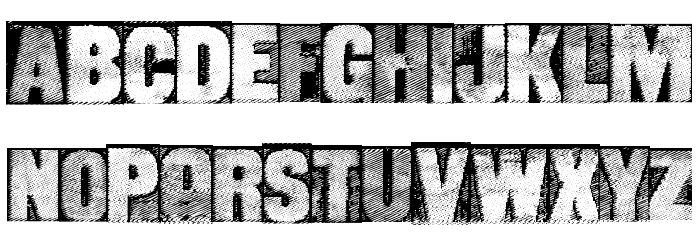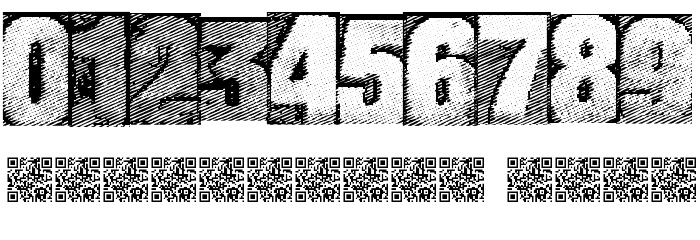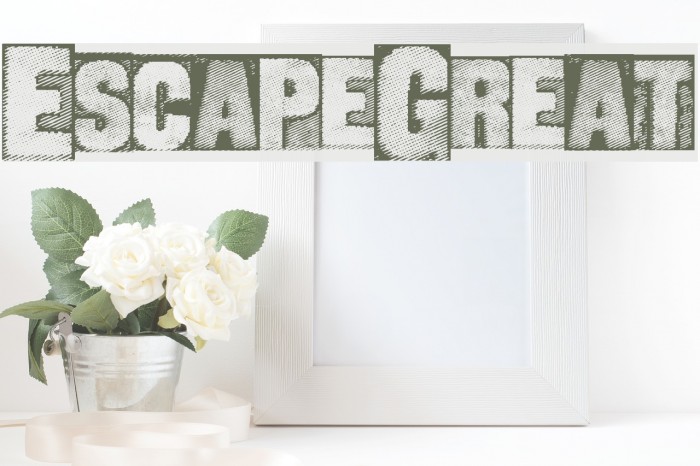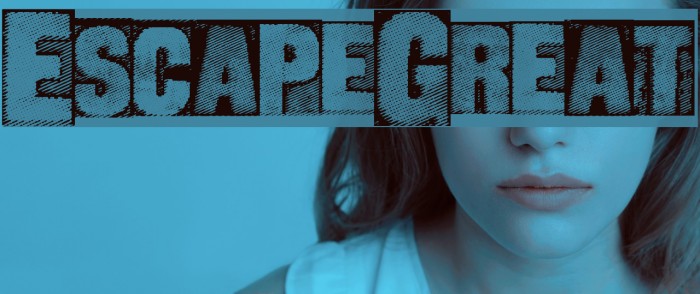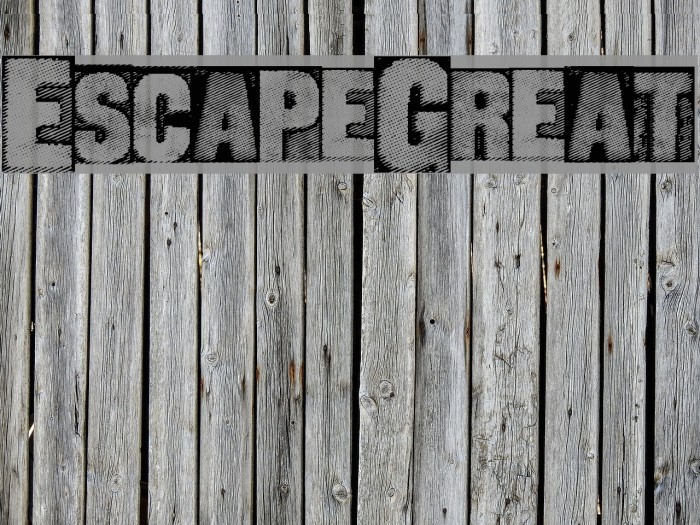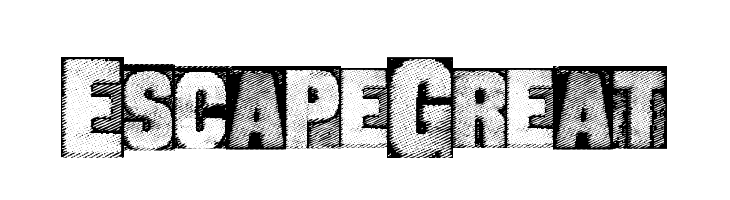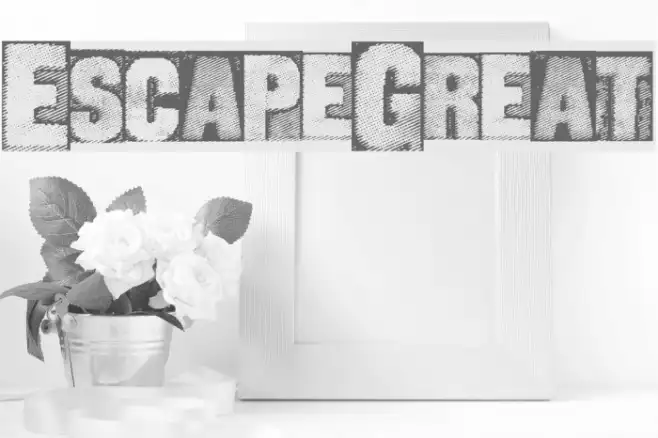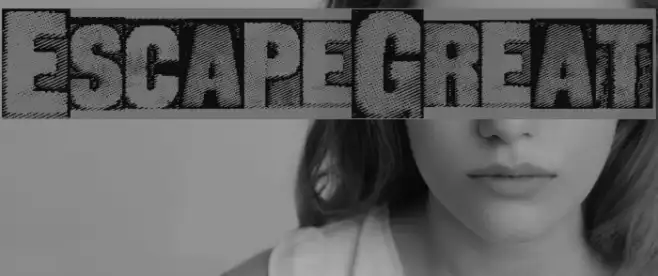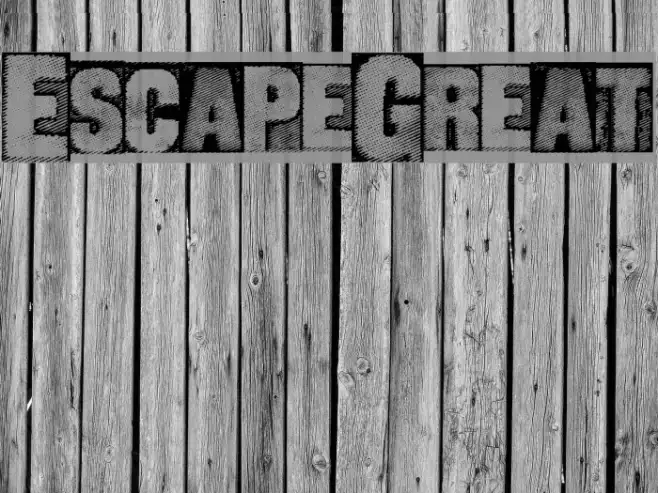
EscapeGreat Font
This font features a bold and impactful design with a textured, distressed appearance. The characters are heavily stylized with a rough, sketch-like quality that gives them a unique, hand-drawn feel. The uppercase letters are prominent and commanding, making them ideal for attention-grabbing headlines or titles. The numbers and special characters maintain the same rugged aesthetic, ensuring consistency across different types of content. The overall look is reminiscent of vintage or industrial styles, with a modern twist that makes it versatile for various design projects.
A bold, textured font with a distressed, hand-drawn appearance.
- Proposed Projects: Ideal for posters, album covers, branding materials, and any project needing a bold, vintage-inspired look.
- Overall Style: Vintage, Industrial